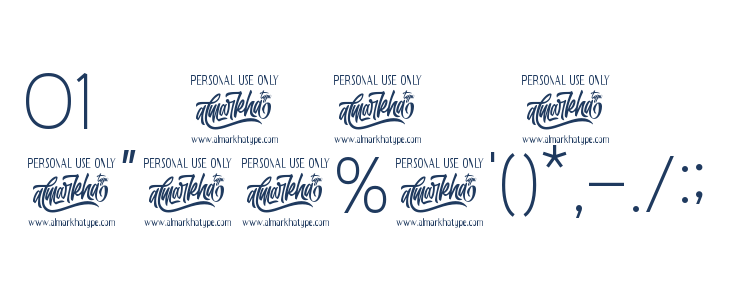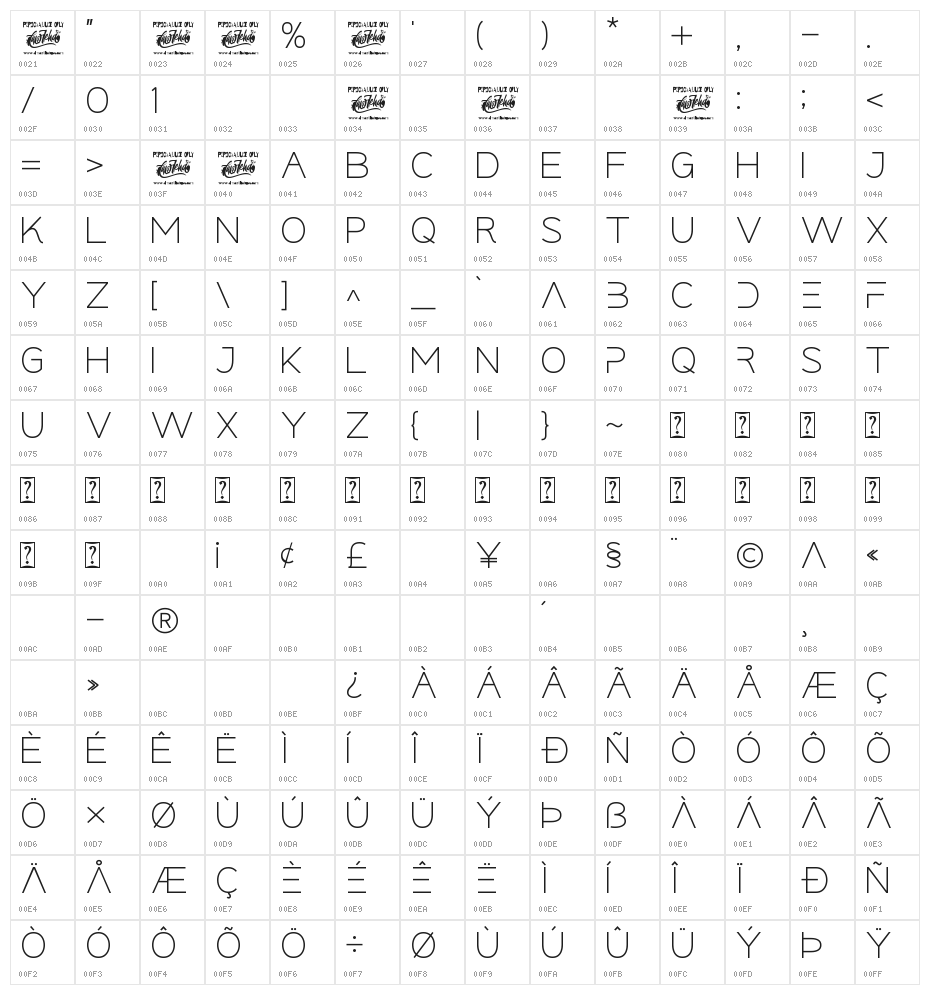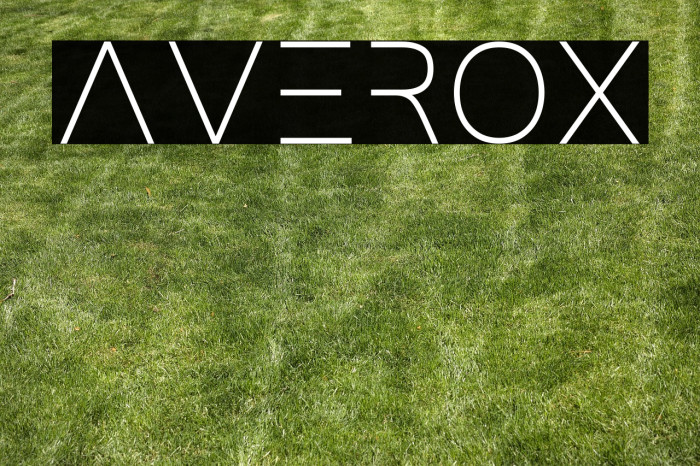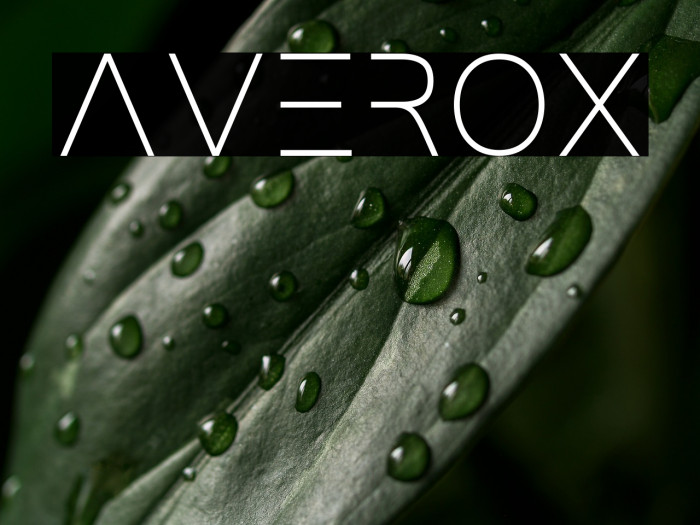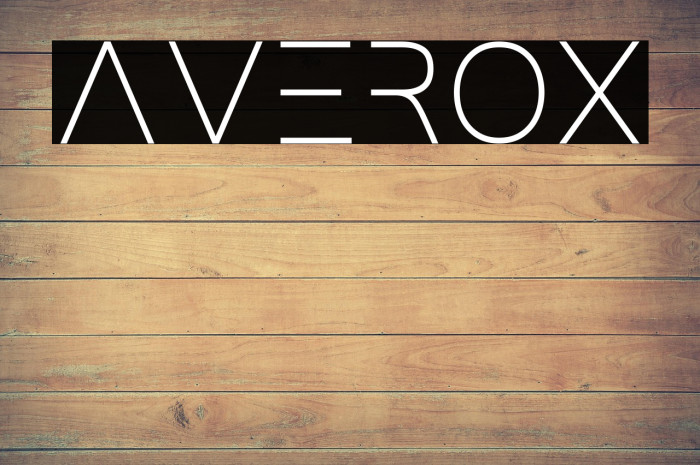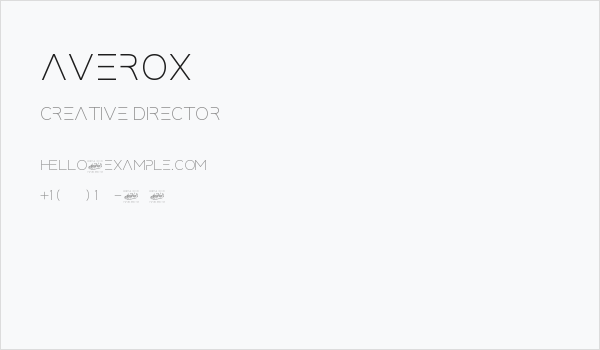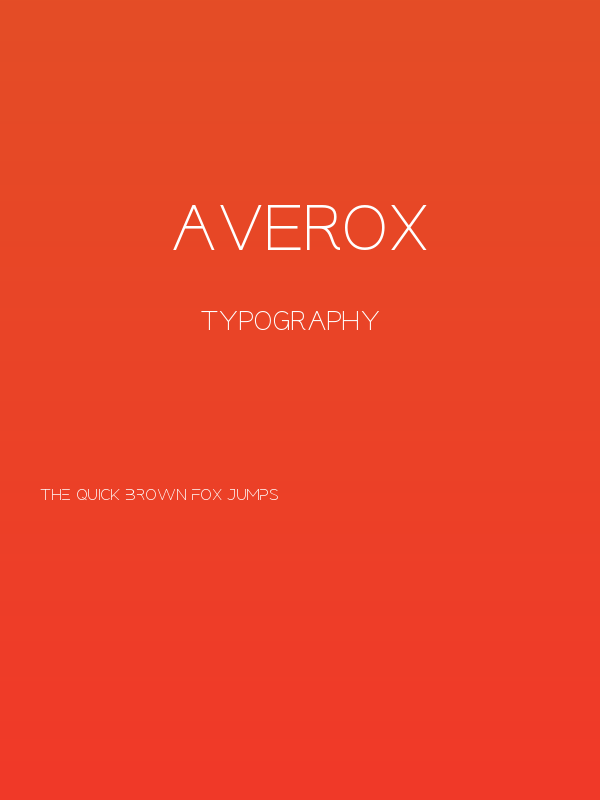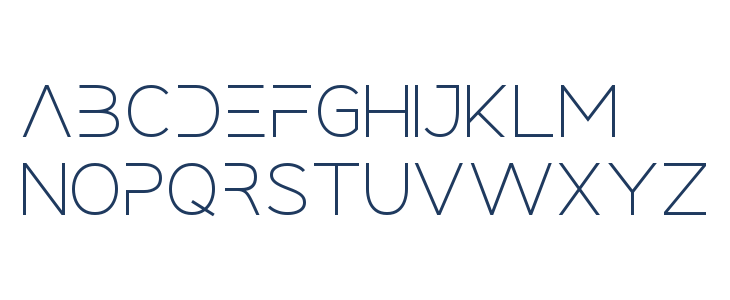
averox Font
averox Description
This font features a sleek, modern design with clean lines and a geometric structure. The uppercase letters are distinct with a uniform stroke width, giving it a minimalist and contemporary appearance. The characters are well-spaced, allowing for excellent readability. The numerals and special characters maintain the same aesthetic, ensuring consistency across all text elements. This font is ideal for projects that require a modern and professional look, such as branding, advertising, and digital interfaces.
| Use Case | Headlines, Logos, Digital Interfaces |
| Proposed Projects | Ideal for branding, advertising, digital interfaces, and modern design projects. |